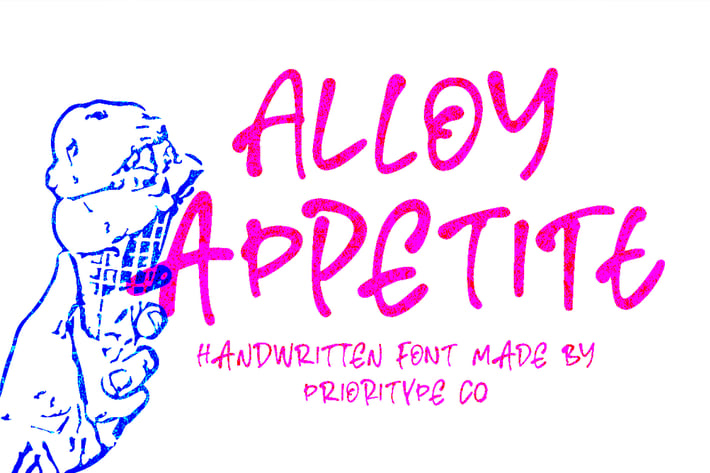
Alloy Appetite – Chic Handwritten Font
Alloy Appetite - Chic Handwritten Font
Handwritten font with thin thick ink that is irregular but very distinctive. By mixing upper and lower case letters, it makes it more natural, like it was drawn by a real hand. Suitable for branding designs, logos, quotes and much more.
Features: Uppercase, Lowercase, Numeral, Punctuation & Multilingual.